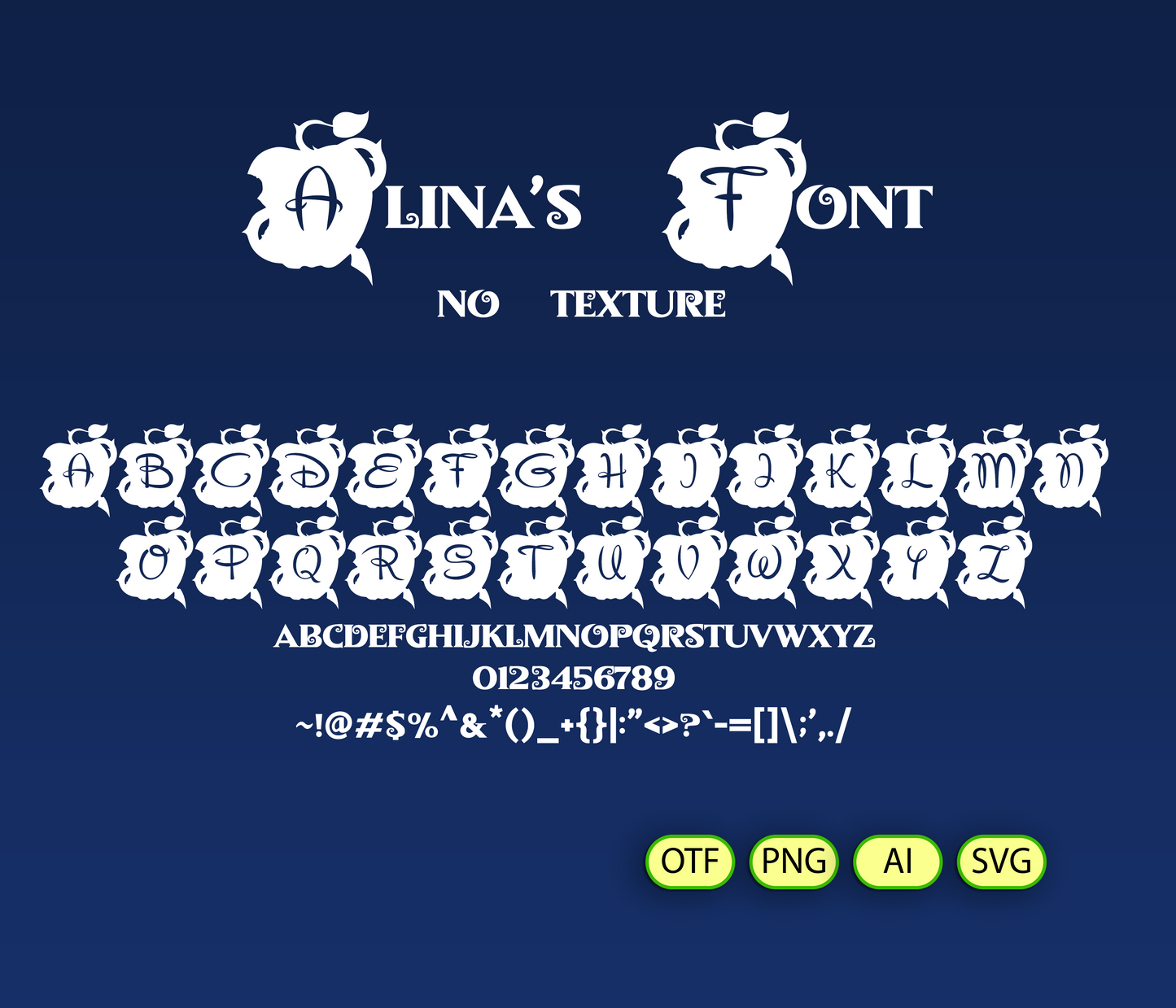
Royal Legacy Font
Step into the enchanted world of modern fairy tale royalty with our Royal Legacy font, capturing the essence of next-generation magic and rebellious charm. Perfect for fantasy fans, party planners, event organizers, and designers, this font brings the bold, edgy spirit of magical heritage to your projects. Create trendy materials, merchandise, or digital content with the electrifying energy of contemporary enchantment.
Our Royal Legacy font features dramatic, modern lines and rebellious characters reflecting the world of next-gen enchantment. Ideal for:
1. Event Promotions: Create stylish invites, posters, and banners for teen parties, fantasy proms, and themed celebrations that capture the spirit of modern magic
2. Merchandise Design: Perfect for t-shirts, posters, and accessories that showcase the edgy side of magical heritage
3. Digital Media: Enhance websites, blogs, and social media with bold headers and graphics that express the blend of tradition and rebellion
4. Fantasy Content: Add authentic flair to fan art, fashion designs, and creative projects inspired by modern magical stories
5. Personal Projects: Bring contemporary enchantment to scrapbooking, DIY crafts, and home decor inspired by the world of magical teens
Our font pays tribute to the vibrant world of modern magical heritage, empowering your designs with its rebellious and enchanted spirit. Whether crafting promotional materials, designing merchandise, or adding a contemporary touch to personal projects, this font communicates the bold essence of next-gen magic. Ready to inject trendy enchantment into your creations? This font is your key to exciting, impactful design.